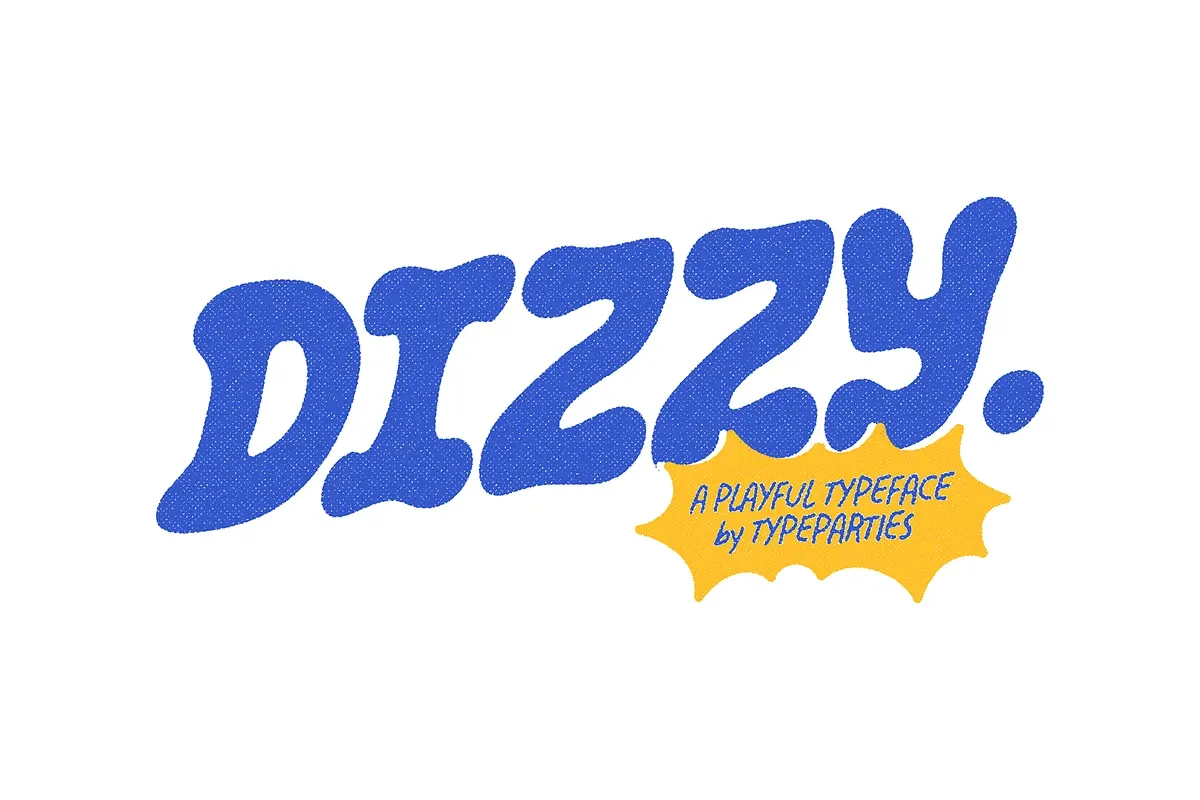
Dizzy Font Free Download is a fun, quirky, and eye-catching typeface that adds energy and playfulness to any creative project. With its irregular shapes and lively curves, this font is ideal for posters, children’s books, social media graphics, event flyers, and any design that needs a bold personality.
Whether you're aiming for a retro vibe or a modern twist, Dizzy delivers charm and uniqueness that grabs attention instantly. It’s perfect for headlines or display use, where you want the typography to take center stage.
The handcrafted look of Dizzy makes it feel personal and expressive, adding character to both digital and print media.